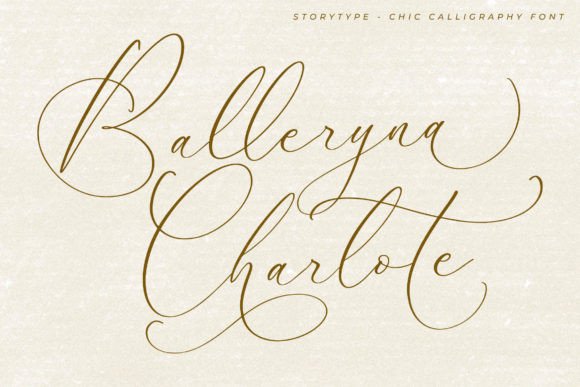
Journey into the realm of Balleryna Charlote, a script font that epitomizes elegance and sophistication. With its captivating handwritten style, this font exudes a timeless charm that adds a touch of personal flair to any project.
Picture this: the flowing strokes of Balleryna Charlote gracefully dance across your website, enveloping your designs in an aura of refinement. Each carefully crafted letterform tells a story, evoking a sense of romance and nostalgia. Whether you're crafting wedding invitations, heartfelt letters, or captivating social media posts, Balleryna Charlote elevates your words, making them resonate with an emotional depth that leaves a lasting impression.
Unleash your creativity and explore the boundless possibilities of Balleryna Charlote. This versatile font family adapts effortlessly to a multitude of design aesthetics, from classic and vintage to modern and minimalist. Its delicate curves and playful flourishes add a touch of whimsy, while maintaining a level of professionalism that makes it suitable for a wide range of applications.
Immerse yourself in the world of Balleryna Charlote and discover a font that goes beyond mere aesthetics. It's a testament to the power of typography, a tool that transforms ordinary words into works of art. With Balleryna Charlote, your designs will captivate, inspire, and leave an indelible mark on your audience.
Don't let mediocrity define your creative vision. Embrace the beauty of Balleryna Charlote and unlock the full potential of your designs. Let your words dance with grace and elegance, leaving a trail of enchantment wherever they go.